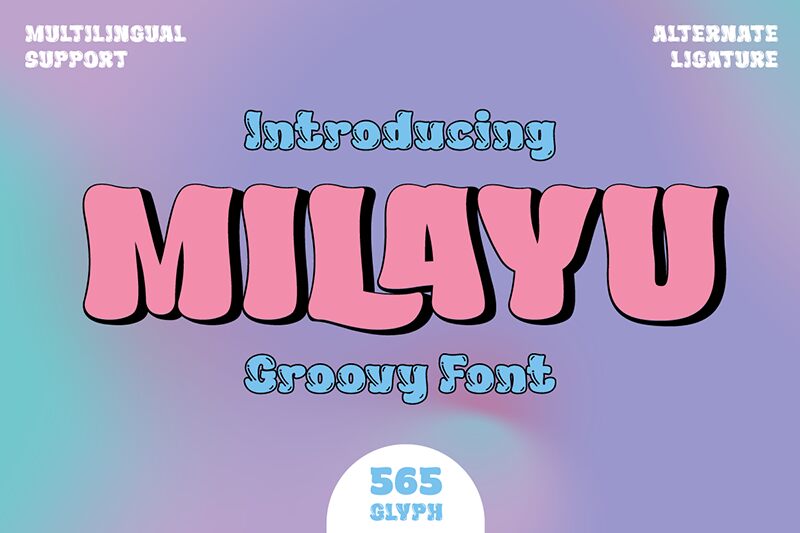
MILAYU Trial Regular
Milayu font by twinletter is a bold display font with groovy, retro-inspired letters. Similar to the pillars of psychedelic artwork, its characters form rounded shapes, and its unprocessed handwriting appearance makes it friendly to the viewer. The rough aesthetic and graphic presence promise impactful visual statements suitable for various platforms.